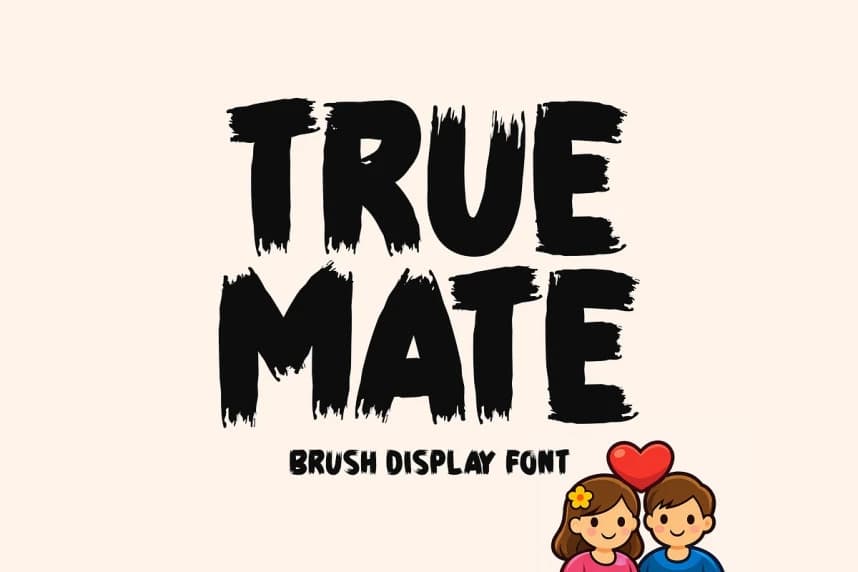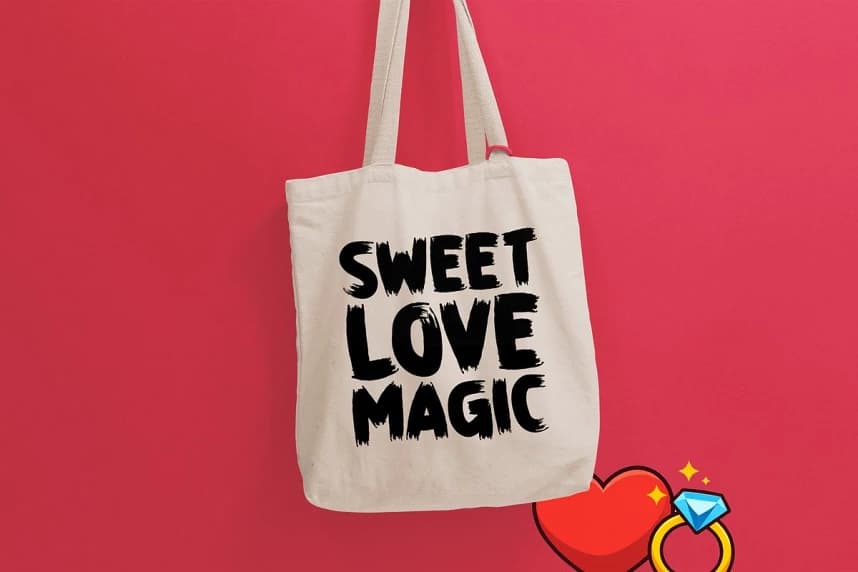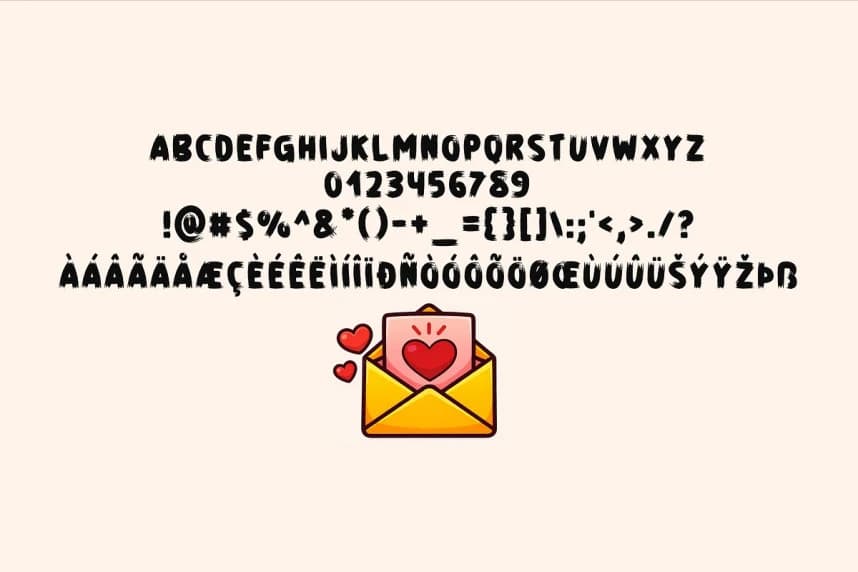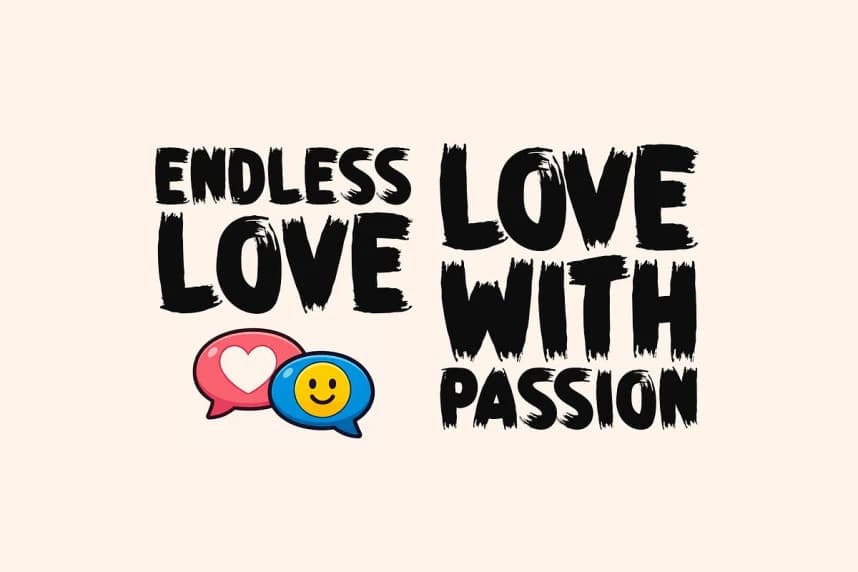
True Mate Font
True Mate Font is a bold brush display font designed to express strong emotions, real connections, and authentic character. Its rough edges and hand-painted strokes create a powerful, energetic presence that instantly grabs attention.